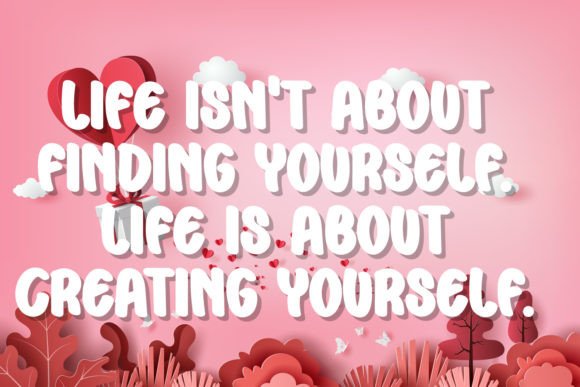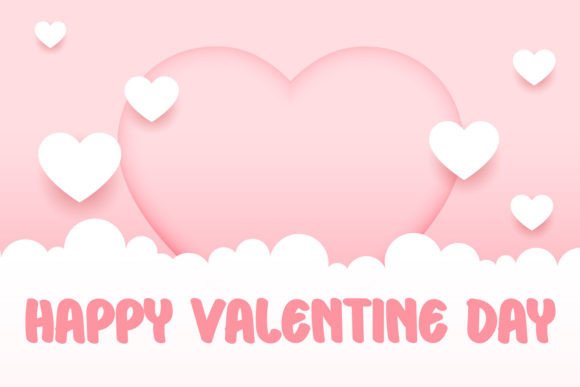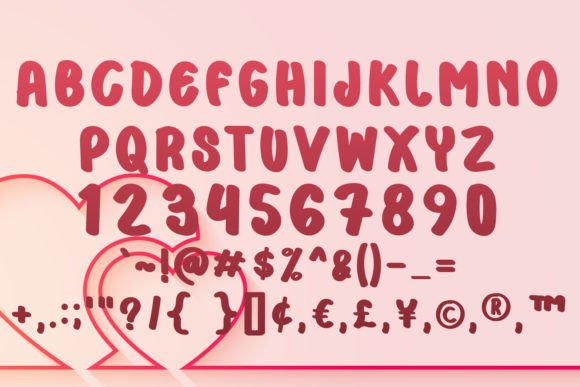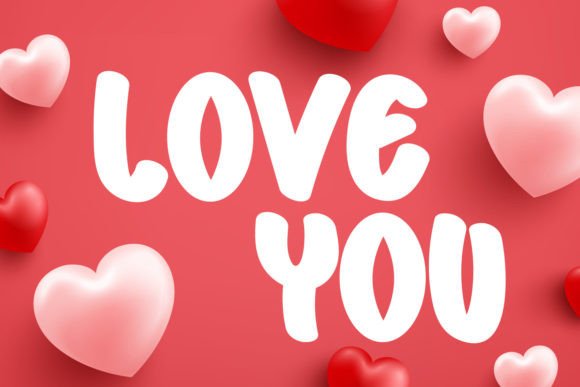
Introducing Bright Love Font: The Perfect Choice for Playful and Vibrant Designs
Are you looking for a font that can add a touch of cuteness and freshness to your designs? Look no further than Bright Love Font! This adorable display font is perfect for creating eye-catching designs that stand out from the crowd. In this article, we’ll take a closer look at Bright Love Font, its features, and how you can use it to create stunning designs, especially for children-themed projects.
What is Bright Love Font?
Bright Love Font is a modern display font that is designed to make your designs pop with a playful and vibrant touch. Its cute and fresh style makes it perfect for a wide range of design projects, from children’s books and educational materials to posters, flyers, and social media graphics.
Key Features of Bright Love Font
• Cute and Fresh Design: Bright Love Font boasts a unique and charming design that is sure to capture the attention of your audience.
• Highly Versatile: This font is suitable for use in a wide range of design projects, from digital to print materials.
• Perfect for Children-Themed Designs: The playful and fun style of Bright Love Font makes it an ideal choice for designs aimed at kids.
• Easily Readable: Despite its playful design, Bright Love Font remains highly readable, even at smaller sizes.
Using Bright Love Font in Your Designs
Bright Love Font is incredibly easy to use and can be applied to various design projects. Here are some ideas on how to make the most of this fantastic font:
Children’s Books and Educational Materials
Create engaging and fun children’s books, educational materials, and activity sheets with Bright Love Font. Its playful style will capture the imagination of young readers and make learning more enjoyable.
Posters and Flyers
Make your posters and flyers stand out with Bright Love Font. Use it to create eye-catching headings and titles that grab attention and communicate your message effectively.
Social Media Graphics
Bright Love Font is perfect for creating social media graphics that stand out in crowded feeds. Use it to create fun and engaging posts, stories, and ads that resonate with your audience.
Tips for Pairing Bright Love Font with Other Design Elements
To get the most out of Bright Love Font, consider pairing it with other design elements that complement its playful style. Here are some tips:
Bright Colors
Combine Bright Love Font with bright and vibrant colors to create a cohesive and visually appealing design. This is especially effective for children-themed designs.
Simple Backgrounds
Keep your background simple and uncluttered to allow Bright Love Font to take center stage. This will help your message stand out and avoid visual overload.
Fun Illustrations
Add fun and playful illustrations to your design to complement Bright Love Font. This is a great way to create engaging and interactive designs for kids.
Bright Love Font is a versatile and charming display font that is perfect for creating playful and vibrant designs. Its cute and fresh style makes it an ideal choice for children-themed designs, but it’s also suitable for a wide range of other projects. With its ease of use and highly readable design, Bright Love Font is a must-have for designers and crafters looking to add a touch of fun and personality to their work.
Get Ready to Fall in Love with Bright Love Font!